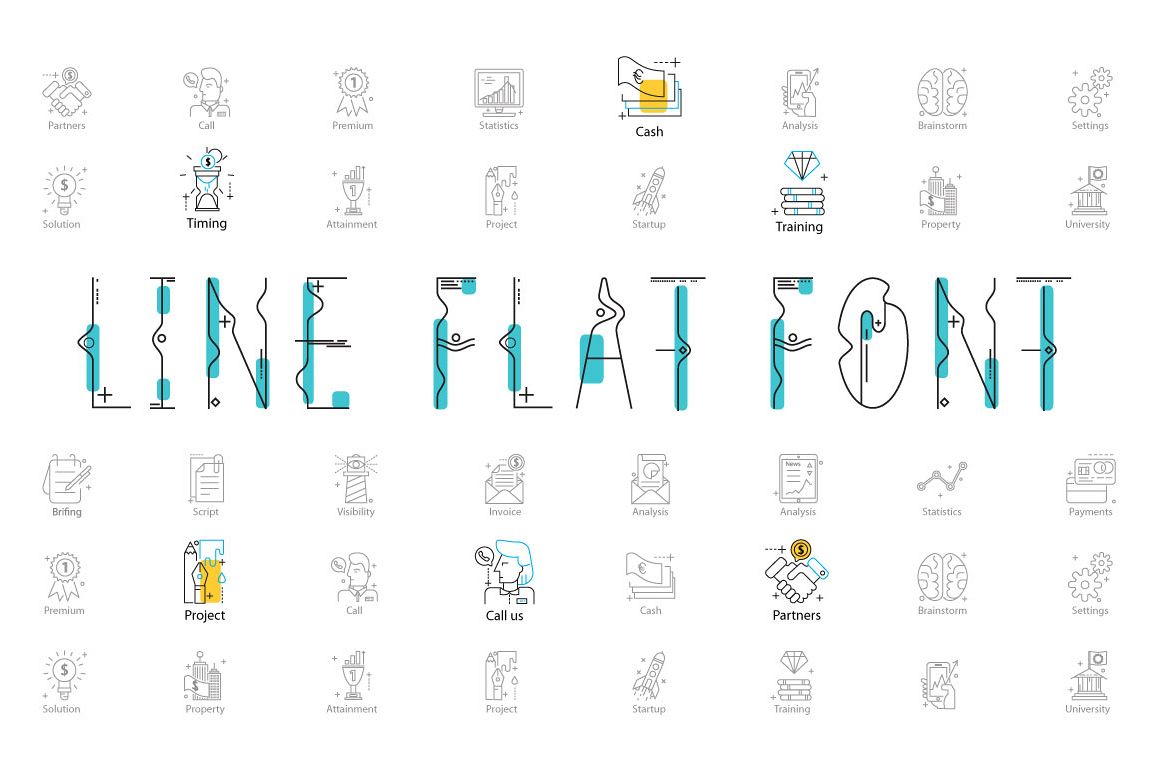
The idea of this text is based on the Line Flat style. This is a unique concise text perfectly with the infographics, Line ICon, Flat design. It is ideal for posters, postcards, labels. In the package you will find 26 icons on the business topic and others. Everything is done in the same style.